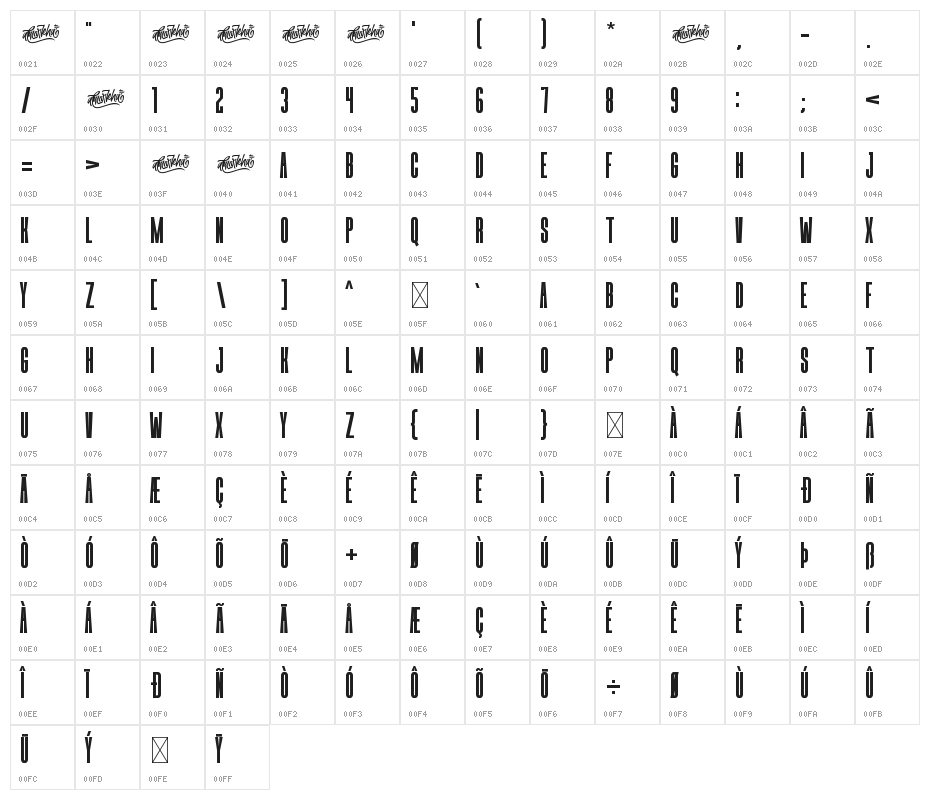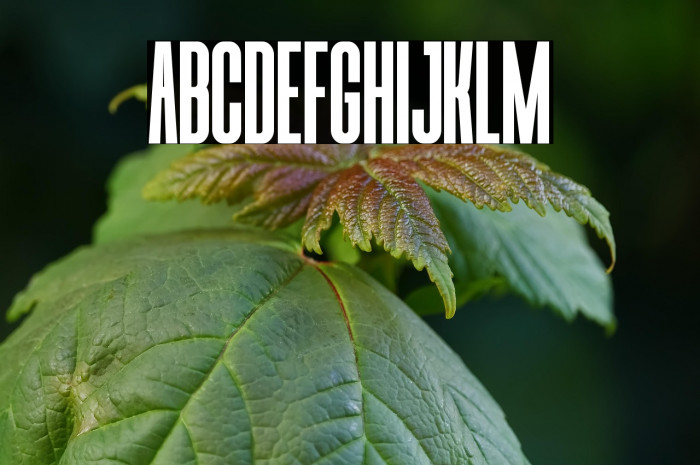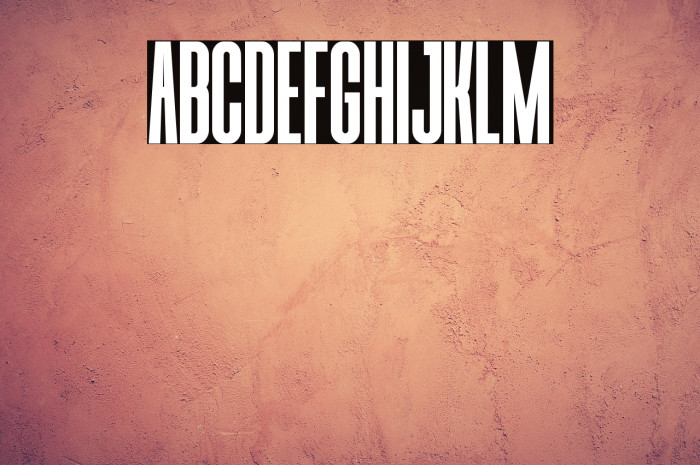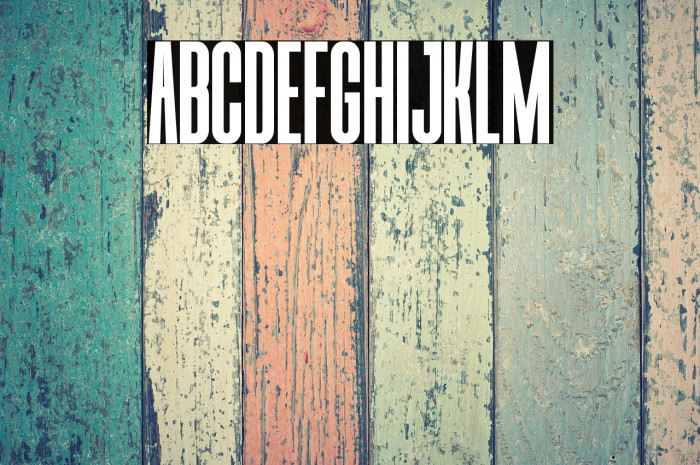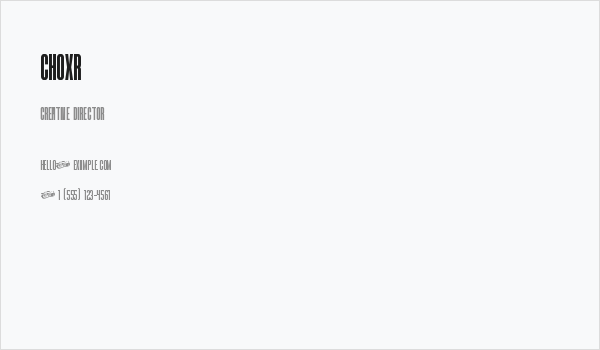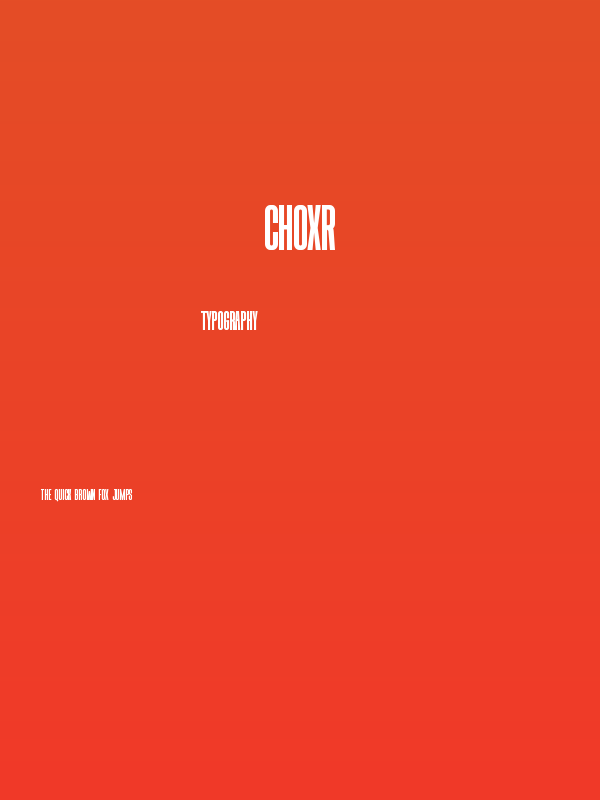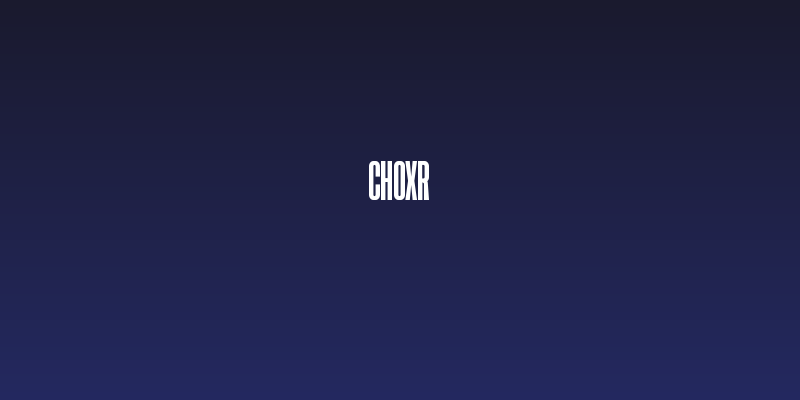
CHOXR Font
CHOXR Description
This font features a bold and impactful design with tall, narrow characters that convey a sense of strength and modernity. The uppercase letters are particularly striking, with a consistent height and clean lines that make them ideal for attention-grabbing headlines. The lowercase letters maintain the same boldness, ensuring readability while adding a touch of elegance. The numerals are equally bold, matching the overall aesthetic of the font. Special characters are included, maintaining the same stylistic consistency. This font is versatile, suitable for a range of design projects that require a strong visual presence.
| Proposed Projects | Perfect for branding, advertising, posters, and any project needing a strong visual impact. |